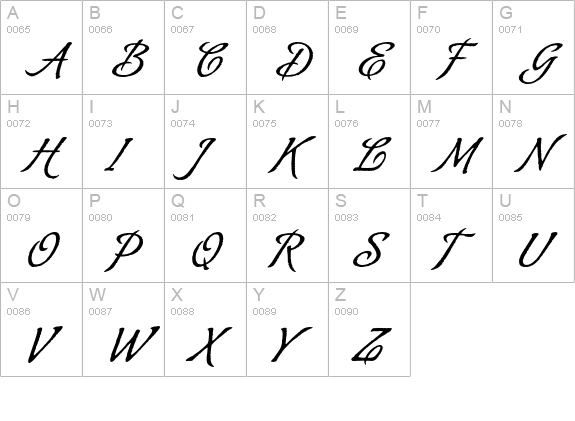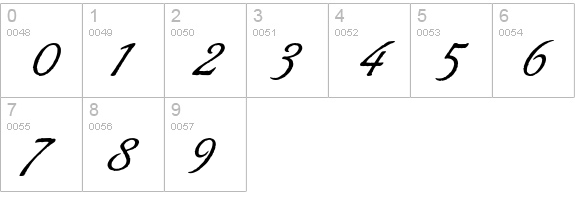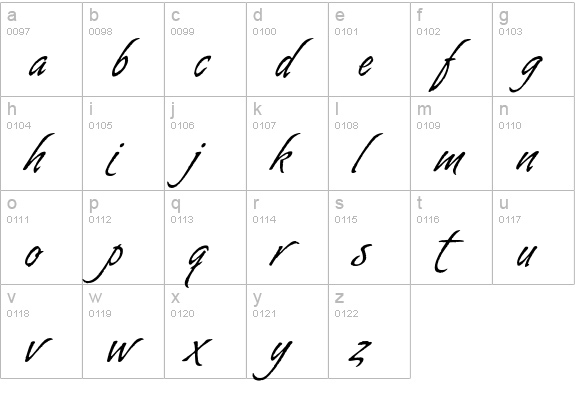
Almond Script Alt Font Details
Almond Script Alt font is a beautifully crafted typeface that exudes elegance and sophistication. With its flowing lines and graceful curves, this font is perfect for adding a touch of class to any project. The alternate version of Almond Script offers a unique twist on the original design, giving you even more versatility and creative possibilities. What sets Almond Script Alt font apart is not only its stunning aesthetic appeal, but also the fact that it is available for free download at FontsMarket.com. This means that you can easily access and use this exquisite font without any cost, making it a valuable resource for designers, creatives, and anyone looking to elevate their work with a touch of timeless charm. Whether you're working on invitations, branding materials, packaging designs, or any other project that calls for a sophisticated touch, Almond Script Alt font is sure to make a lasting impression. Download it for free today and add a touch of elegance to your next creative endeavor.